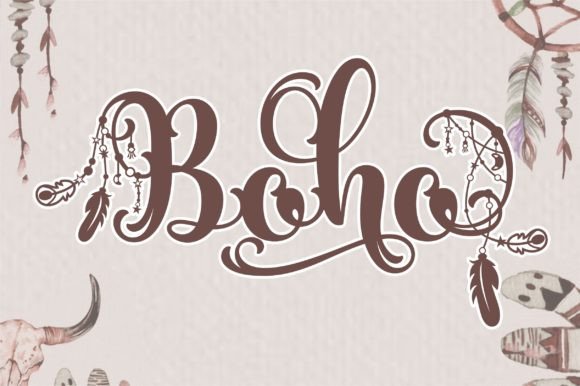
The Boho Chic Font: A Designer’s Dream Come True
I’ll never forget the time I was working on a project for a client who wanted a bohemian-inspired brand identity. I had a clear vision of what I wanted to create, but I was struggling to find the perfect font to bring it all together. That’s when I stumbled upon the Boho Chic font, and it was love at first sight! 💕
This beautiful font has a unique and bohemian feel that’s both charming and elegant. It’s perfect for any design ideas that need that special touch. In this article, I’ll share my honest review of the Boho Chic font, a practical guide on how to use it, and some helpful tips and tricks to get the most out of this amazing font.
Honest Review: What I Love and What I Don’t
• 💫 Unique and bohemian feel that’s perfect for creative projects
• ✅ PUA encoded, making it easy to access all glyphs and swashes
• 🎨 Highly versatile and can be used for a variety of design projects, from branding to packaging
• 👀 Beautifully crafted with attention to detail and a clear understanding of bohemian aesthetics
While the Boho Chic font is amazing, there are a few things to keep in mind:
• 🤔 Some users may find the font a bit too ornate or over-the-top for certain projects
• ⚠️ The font may not be suitable for very small text sizes or body text, as it can be a bit too decorative
The Story Behind Boho Chic Font
The Boho Chic font was created by a talented designer who’s passionate about bohemian aesthetics and unique typography. Inspired by the free-spirited and artistic vibe of the bohemian lifestyle, this font is designed to evoke a sense of freedom, creativity, and playfulness. Whether you’re a designer, crafter, or creative hobbyist, the Boho Chic font is sure to inspire your next project!
Q: What is the Boho Chic font?
A: The Boho Chic font is a beautiful, unique font with a bohemian feel that’s perfect for creative projects.
Q: Is the Boho Chic font PUA encoded?
A: Yes, the Boho Chic font is PUA encoded, making it easy to access all glyphs and swashes.